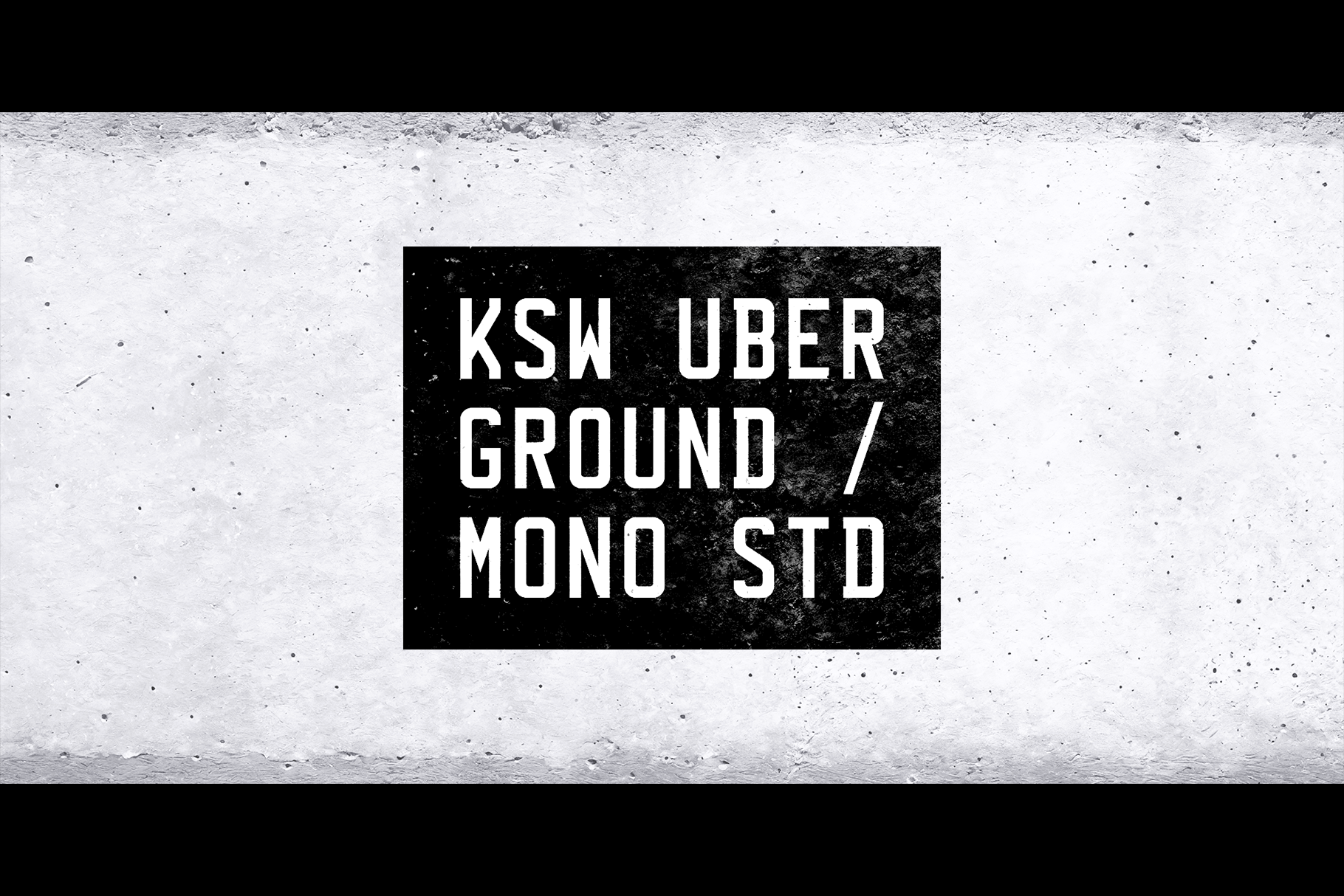
KSW Uberground Mono Std Font
KSW Uberground Mono Std is a simplified monospaced version of the KSW Uberground Pro font. Its precise grid is based on early versions of DIN from 1927 but in 1:2 proportions. The glyph designs are inspired by the British number plate font from 1935.
Its geometric proportions and high readability make it an excellent choice for headlines and posters, industrial design and signage, navigation elements, as well as coding. The recognizable style can be both retro and futuristic, creating unique atmospheric associations.
OpenType features are available:
• Lots of stylistic alternates
• Recognizable historical angled terminals
• Different angles of inclination (K, S)
• Shifted vertical centers (P, R)
• Different heights for all types of brackets
• Uppercase